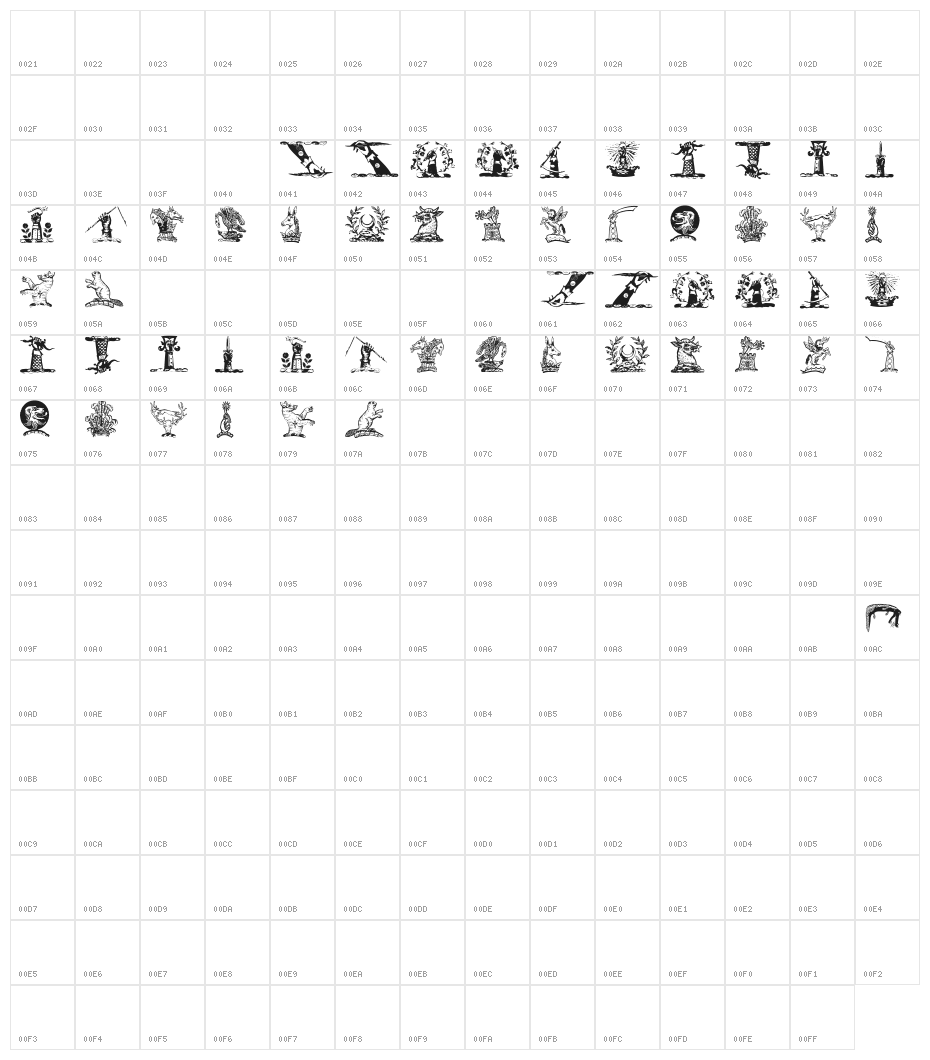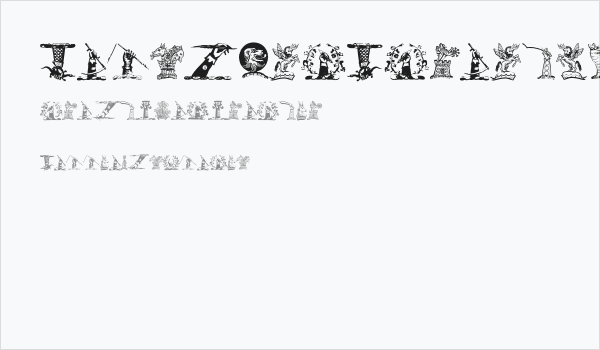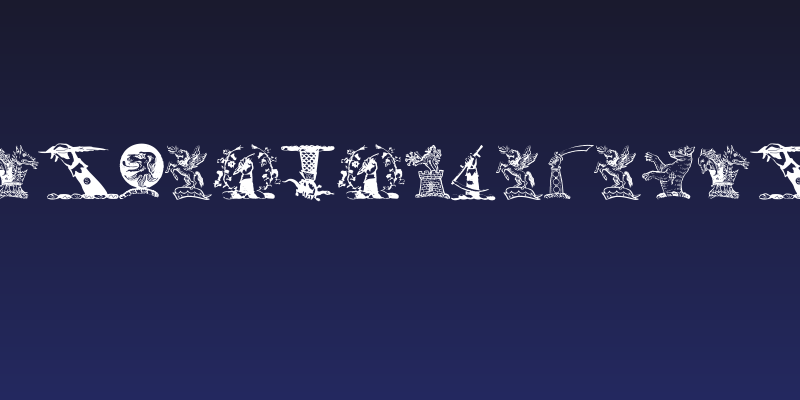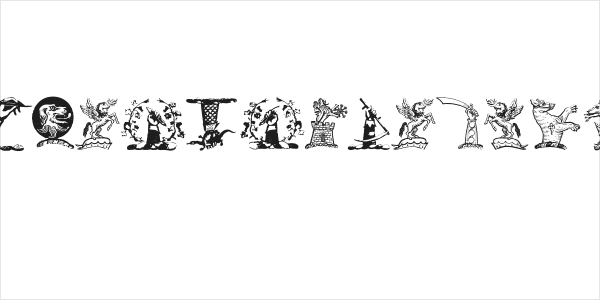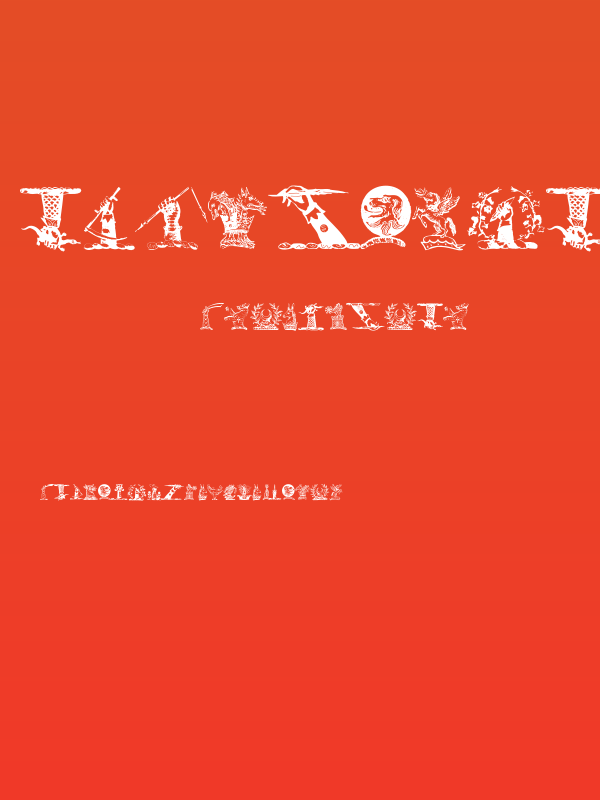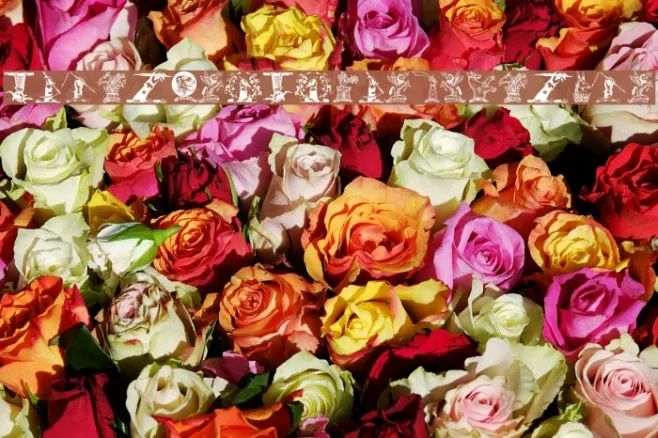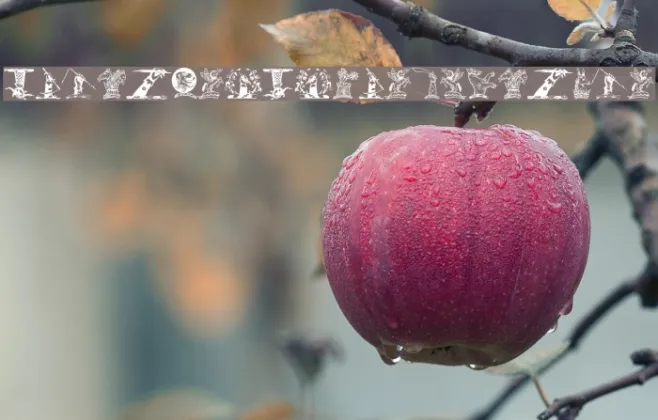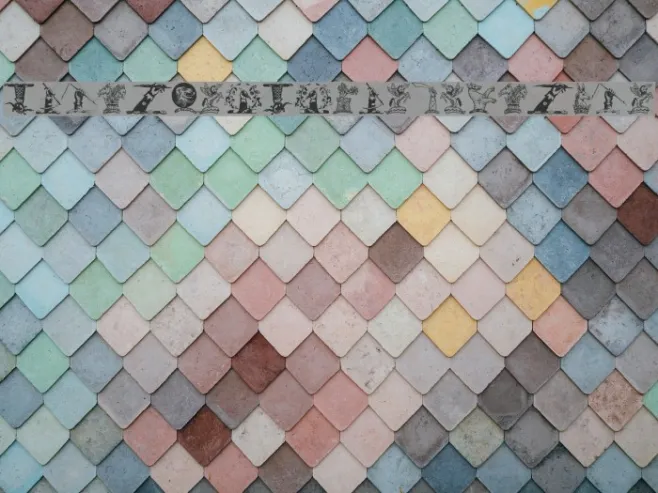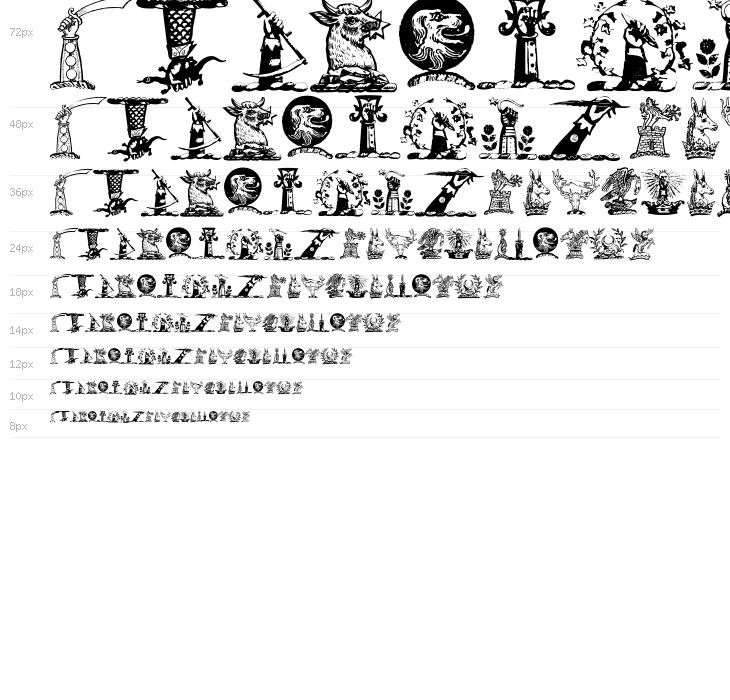
HelmbuschCrestSymbols Font
HelmbuschCrestSymbols Description
This collection features an array of intricate and ornate symbols, each uniquely designed with elaborate details reminiscent of heraldic crests. The symbols incorporate various elements such as animals, mythical creatures, and decorative motifs, each crafted with a high level of artistry. The designs are highly detailed, with a focus on creating a sense of grandeur and historical significance. The symbols are not uniform in shape or size, adding to their uniqueness and charm. They evoke a sense of tradition and nobility, making them suitable for projects that require a touch of elegance and sophistication.
| Use Case | Logos, Decorative elements |
| Proposed Projects | Ideal for use in heraldic designs, historical-themed projects, book covers, or as decorative elements in graphic design. |